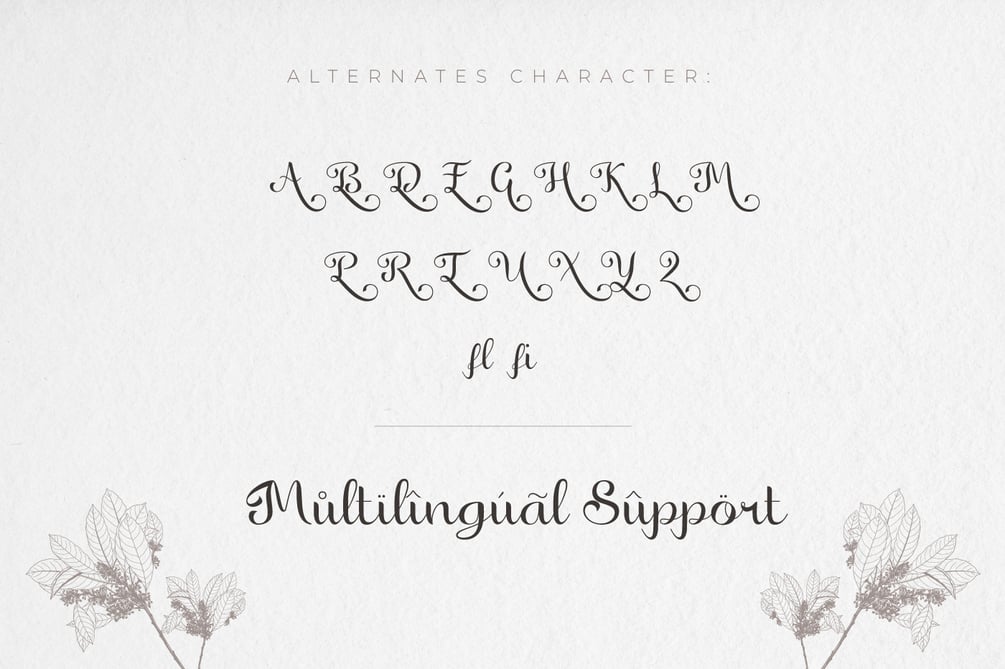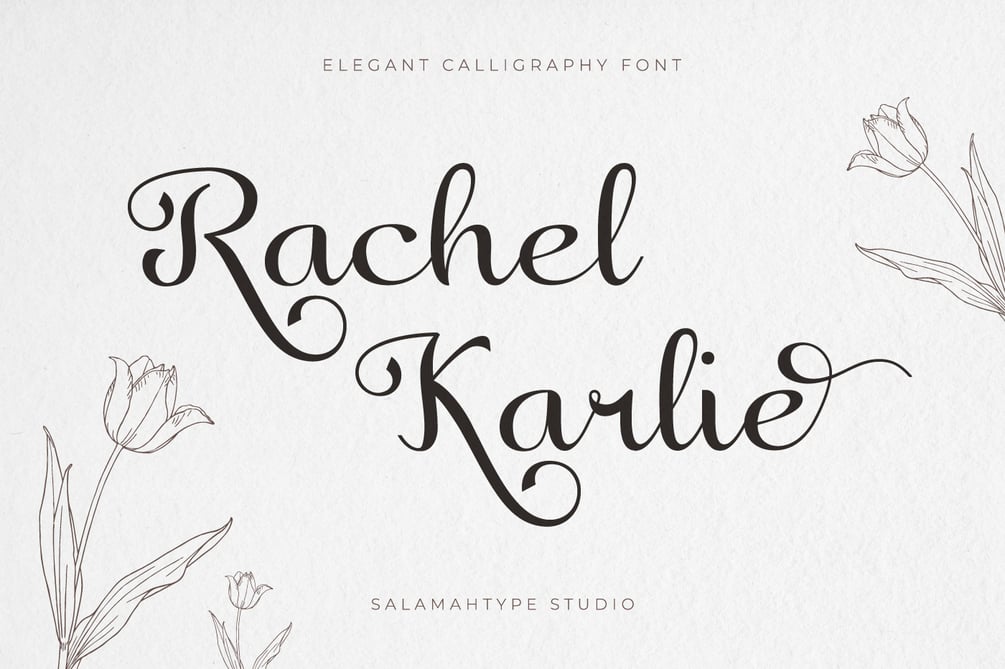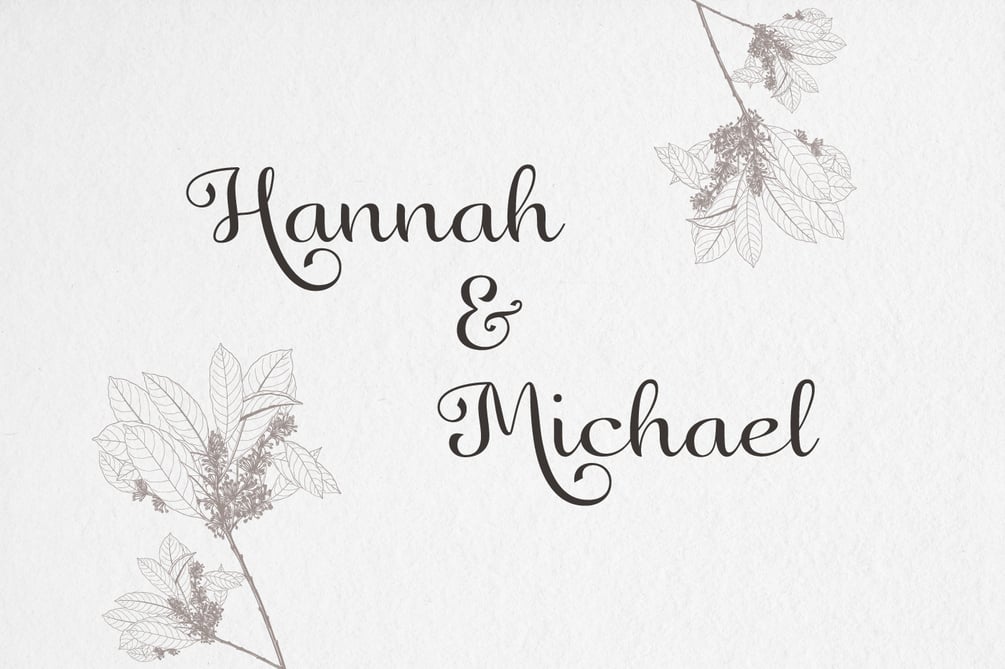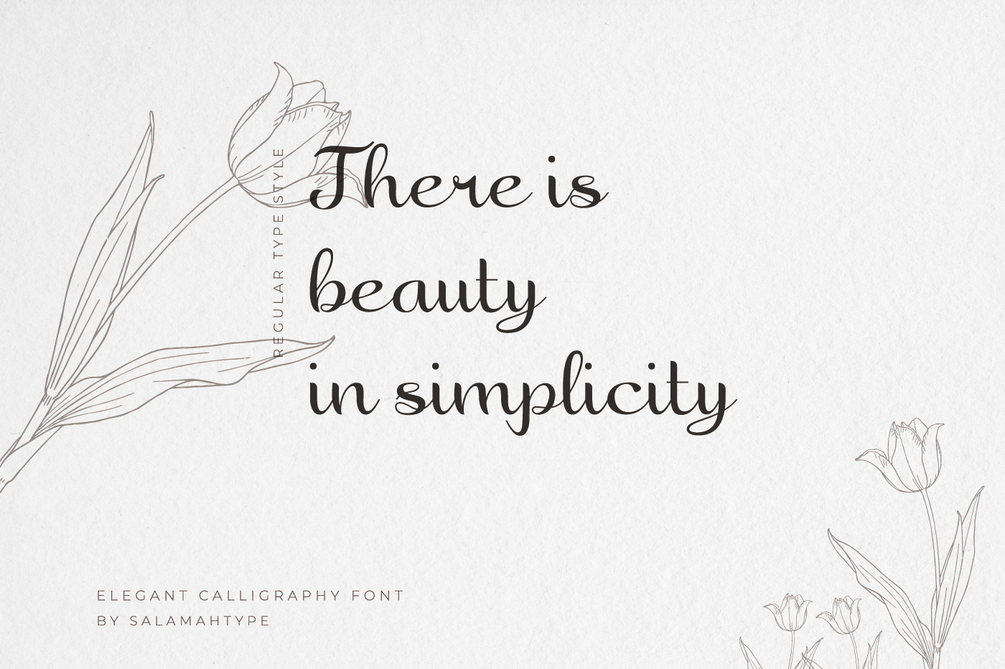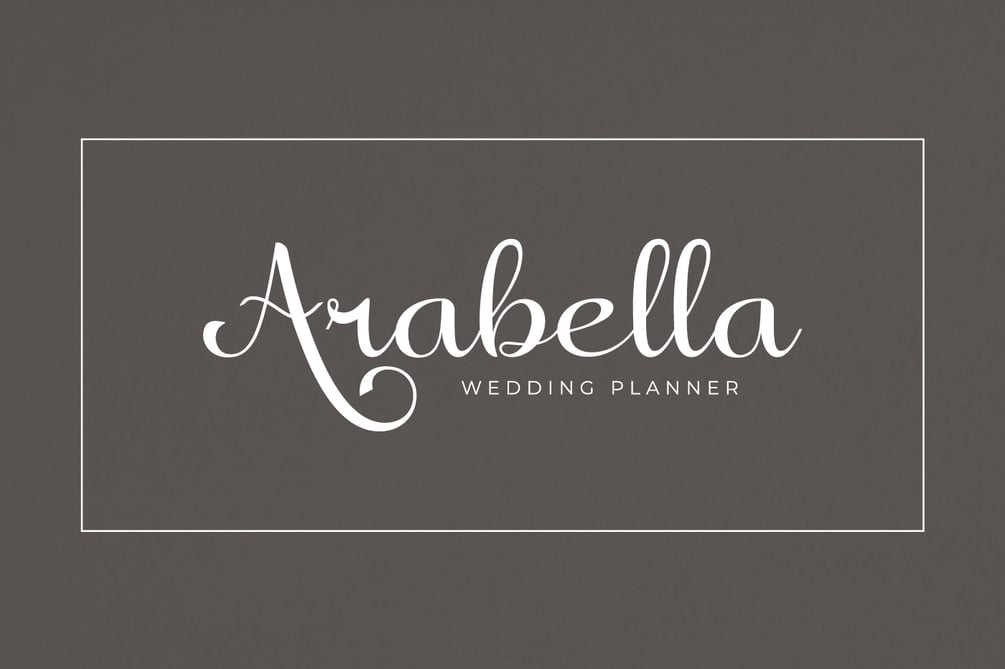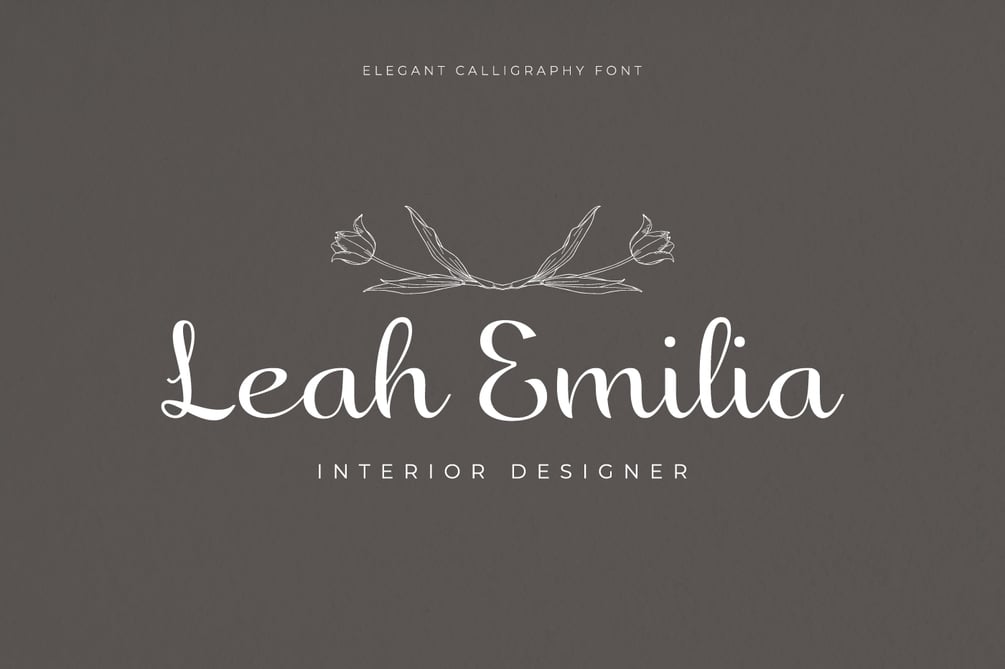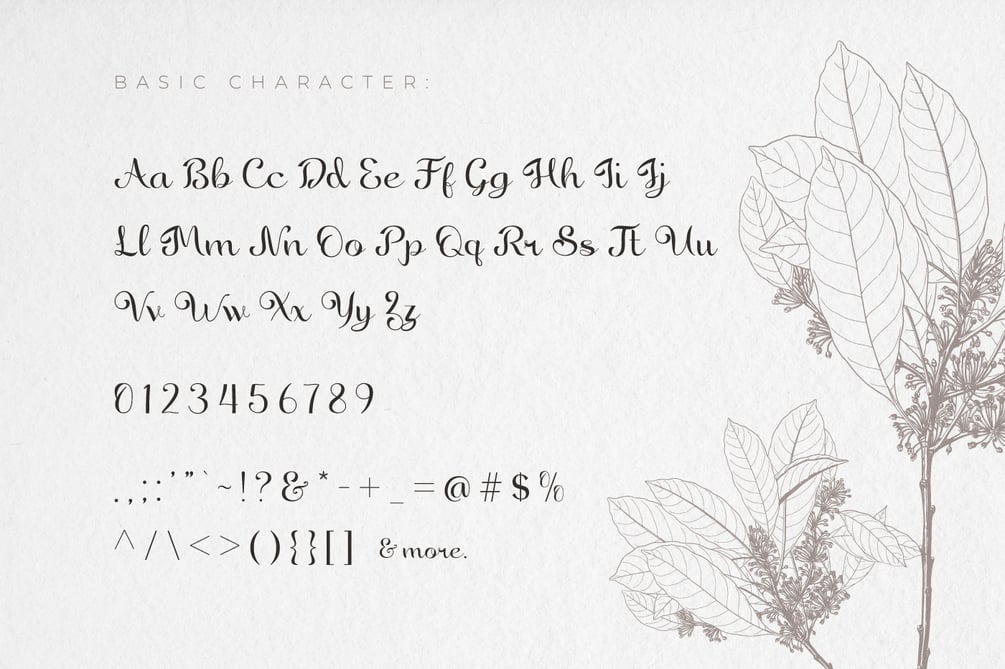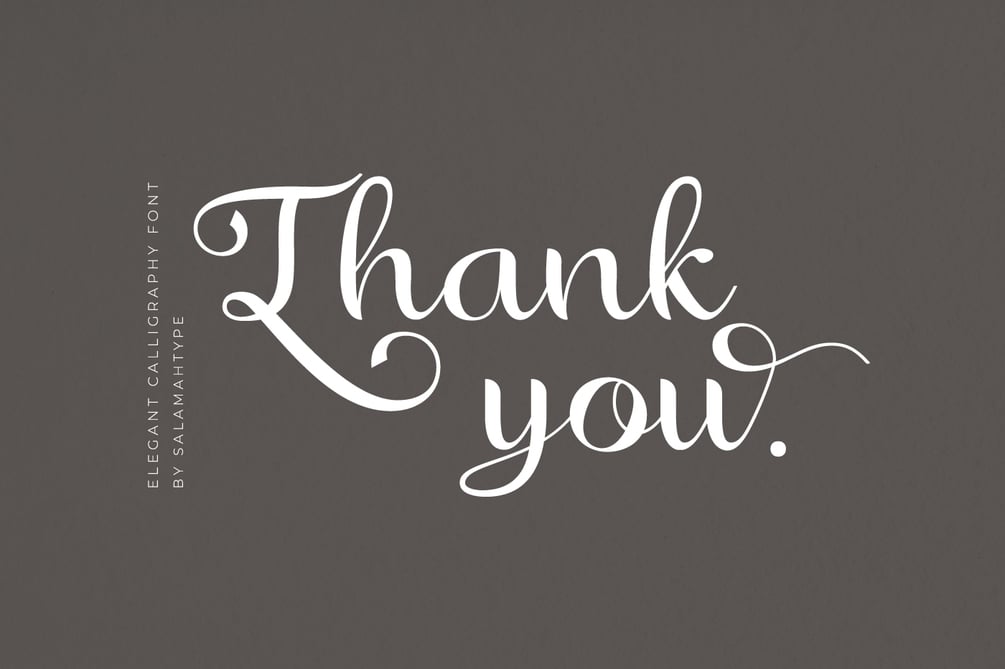
Rachel Karlie - Modern Script Font
Rachel KarlieCalligraphy Font is perfect for branding projects, logo, wedding designs, product packaging, product designs, label, invitation, social media posts, advertisements, merchandise and more!
Features :
• Uppercase & Lowercase
• Numbers and Punctuation
• MULTILINGUAL
• Ligature and Alternate